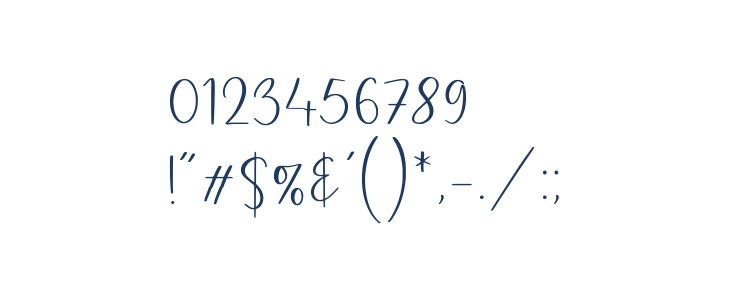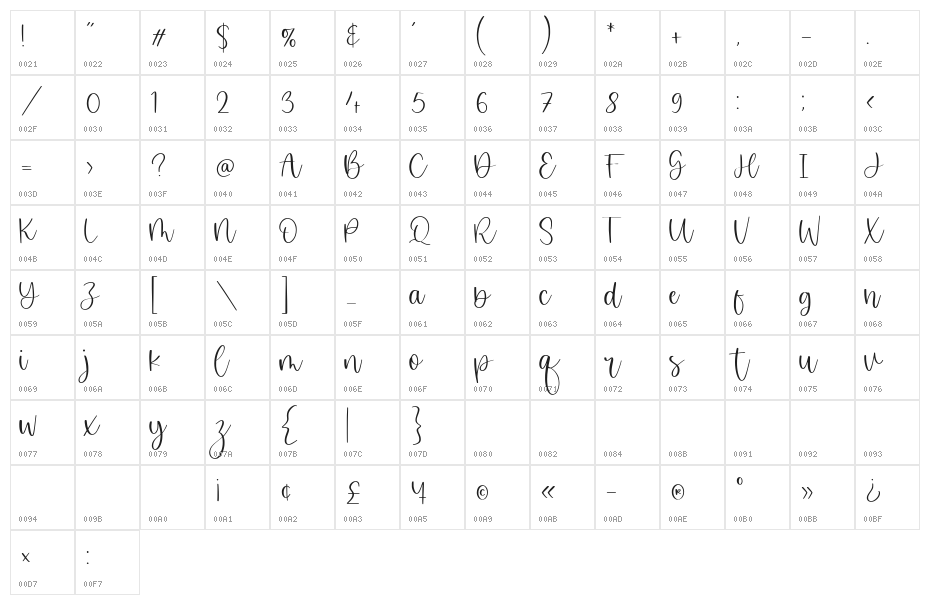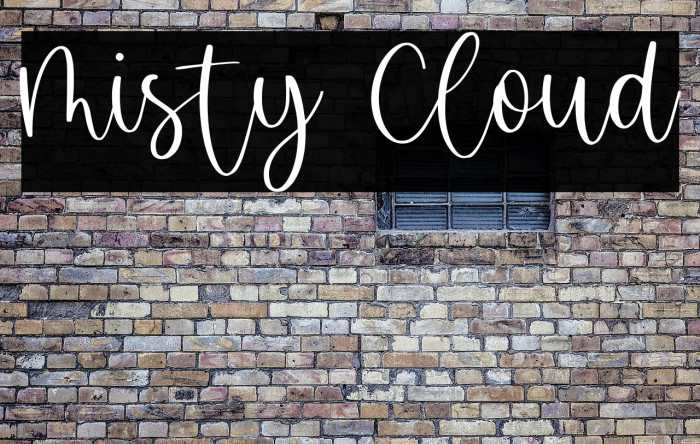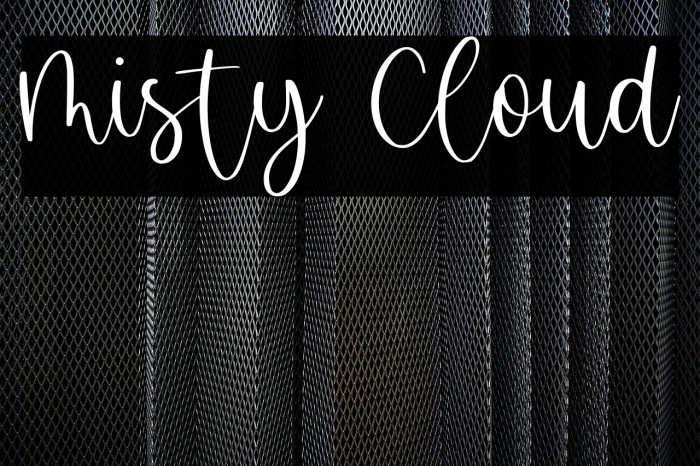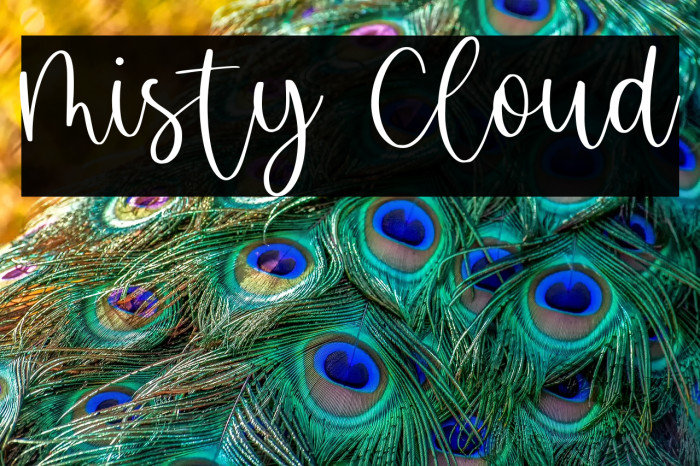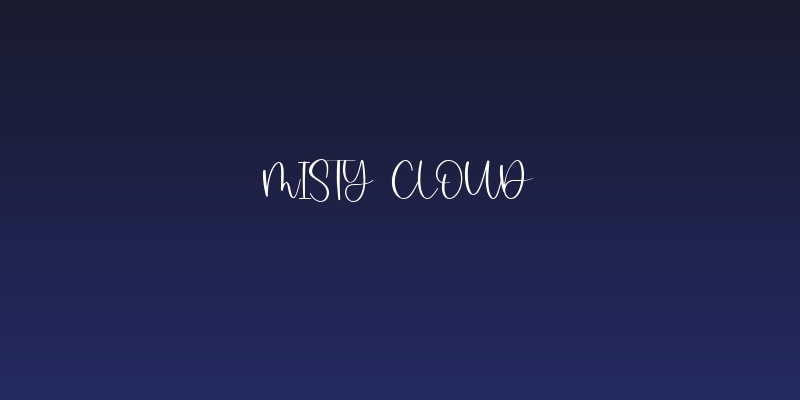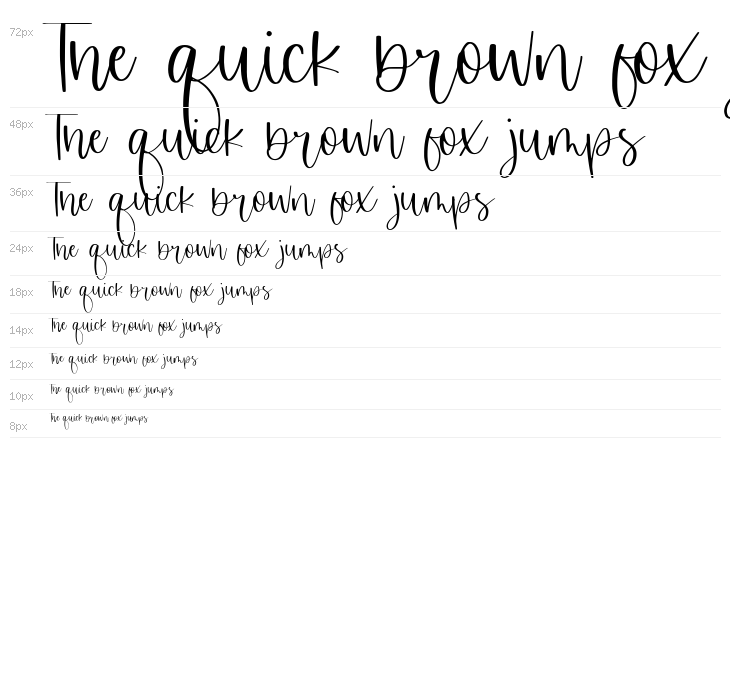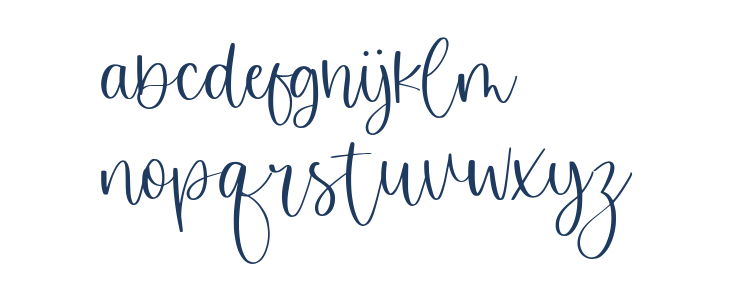
Misty Cloud Font
Misty Cloud Description
This font features a playful and elegant handwritten style with a modern twist. The characters are fluid and connected, giving a sense of movement and grace. The uppercase letters are bold and expressive, while the lowercase letters maintain a consistent flow with occasional loops and swirls. The numerals are clear and easy to read, complementing the overall aesthetic. Special characters are designed with the same attention to detail, ensuring a cohesive look across all text elements. This font is perfect for adding a personal touch to any project.